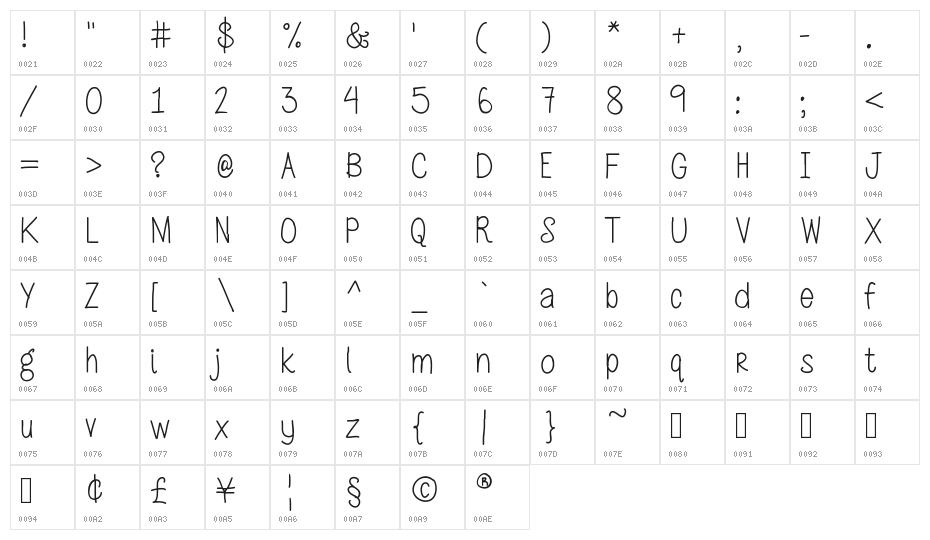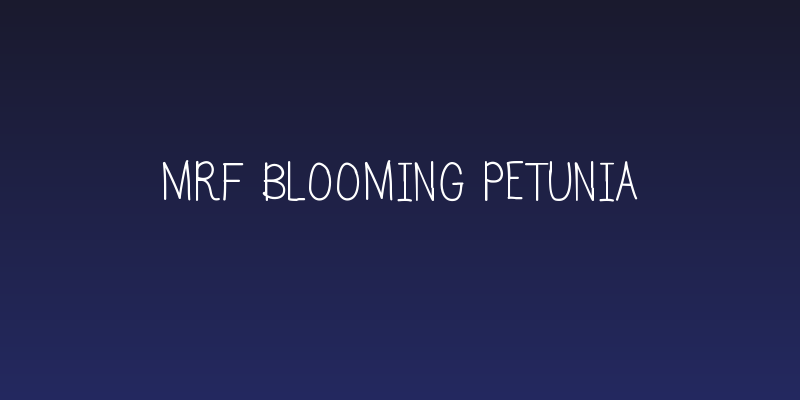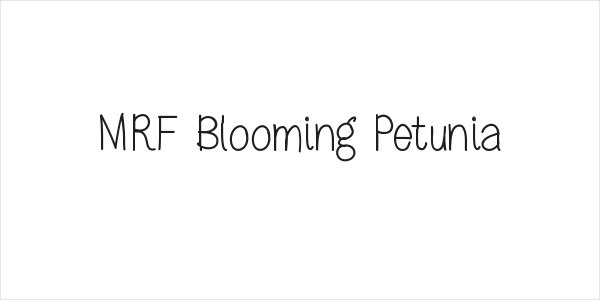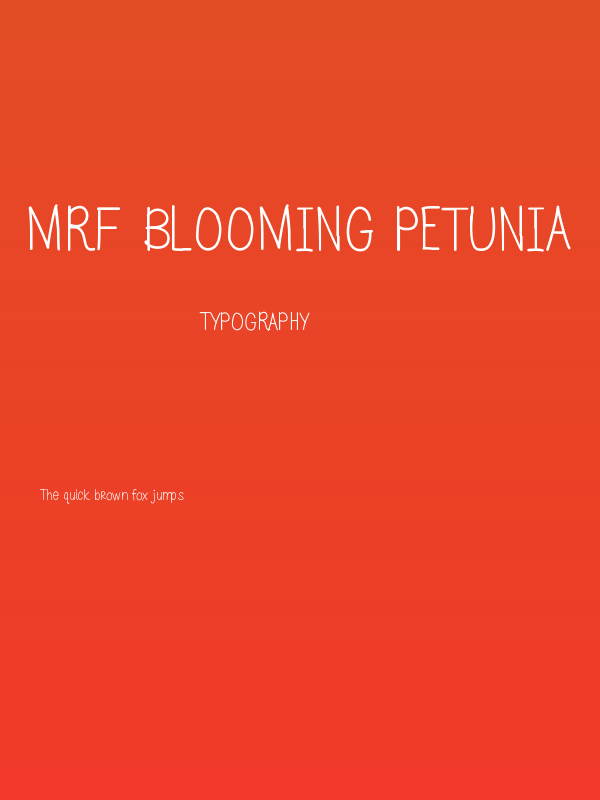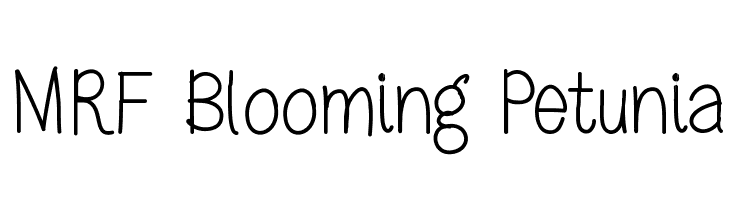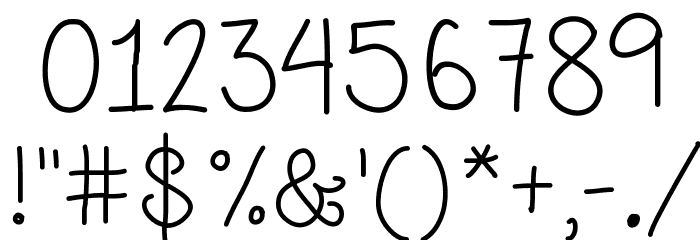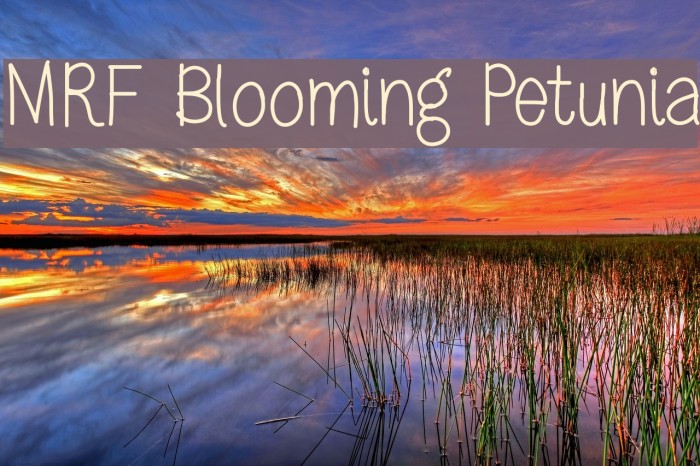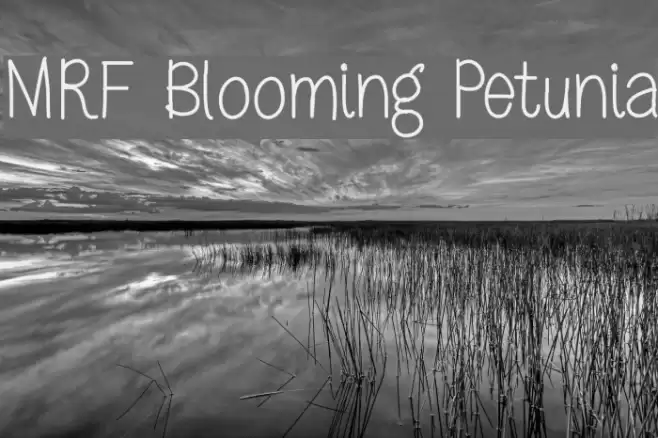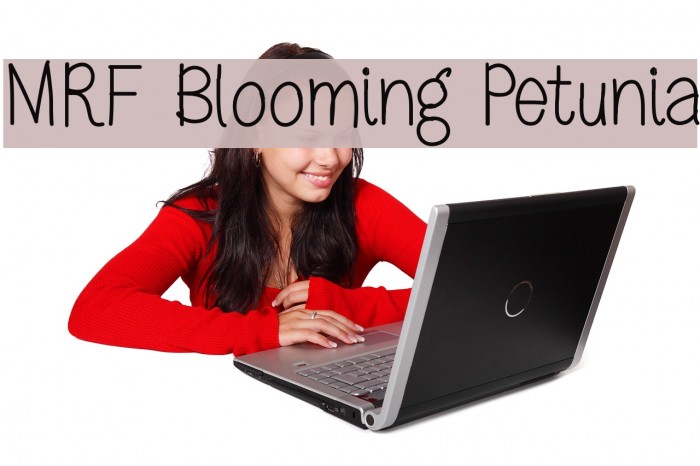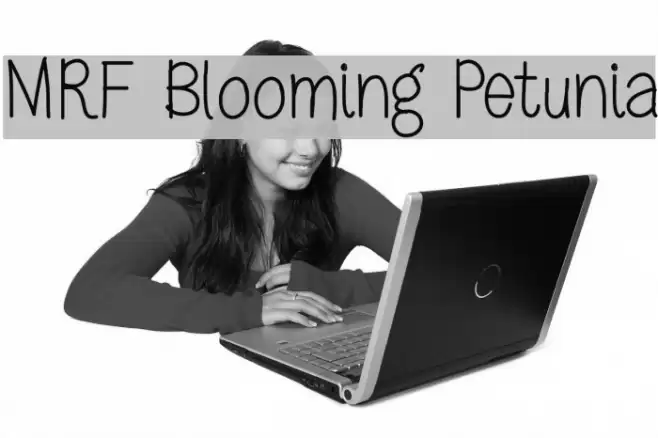
MRF Blooming Petunia Font
MRF Blooming Petunia Description
This font features a playful and whimsical handwritten style, characterized by its irregular strokes and casual appearance. The letters are slightly uneven, giving it a charming and approachable feel. The uppercase letters are tall and narrow, while the lowercase letters maintain a consistent height, adding to its informal nature. The numerals are rounded and match the playful style of the alphabet. Special characters are included, maintaining the same quirky aesthetic. This font is perfect for projects that require a personal touch, such as invitations, greeting cards, or children's book illustrations.
| Overall Style | Playful |
| Use Case | Headlines, Informal text, Creative projects |
| Proposed Projects | Ideal for invitations, greeting cards, children's books, and playful branding. |